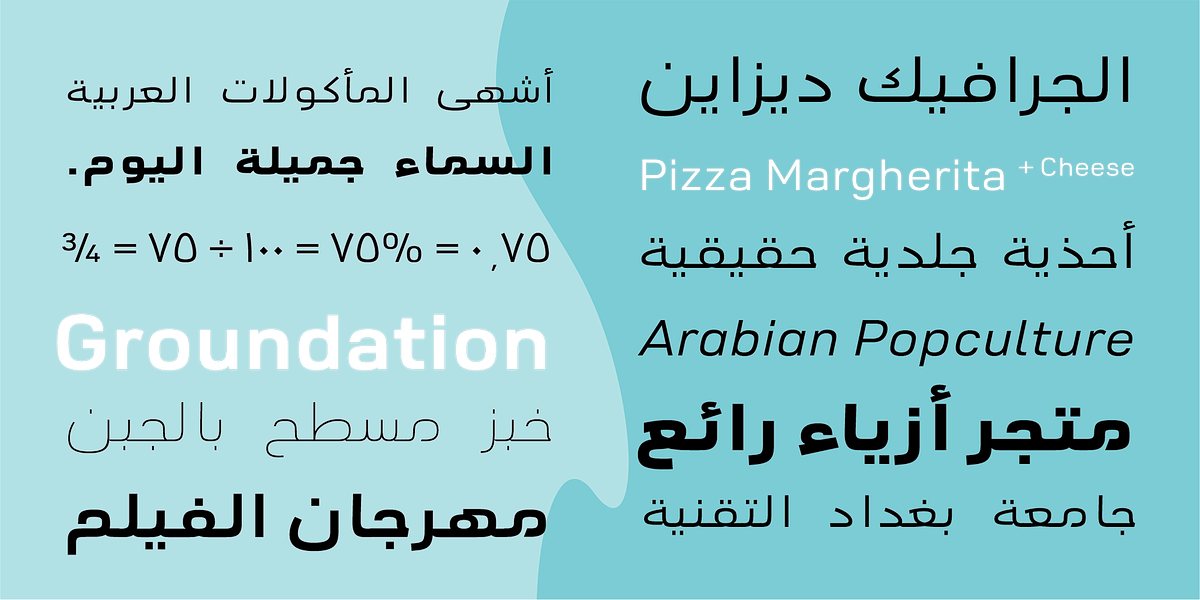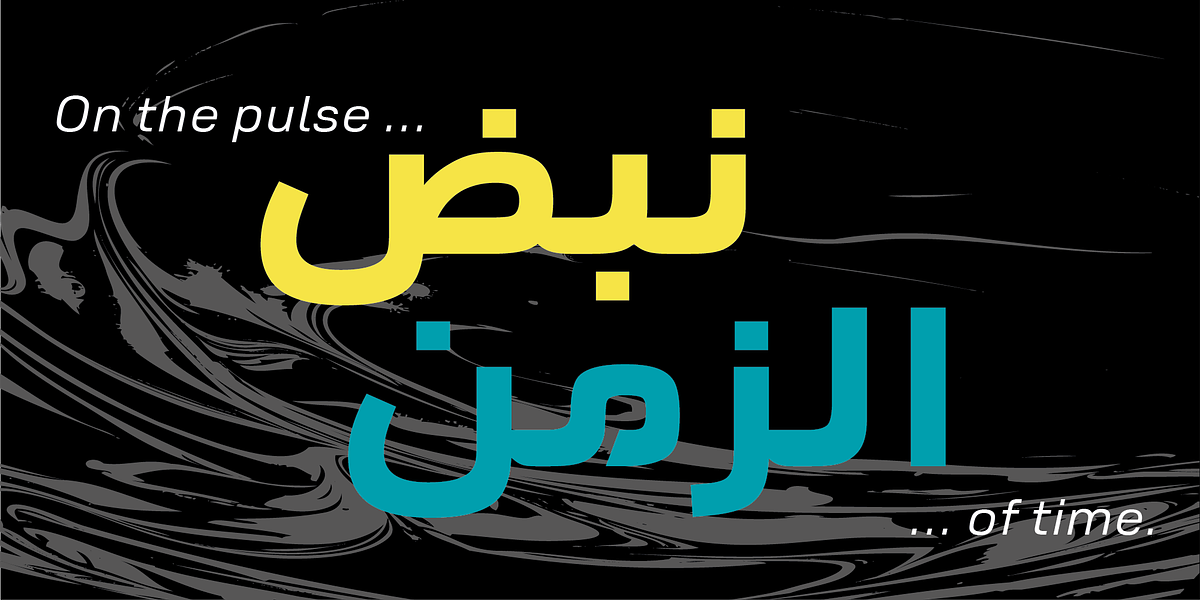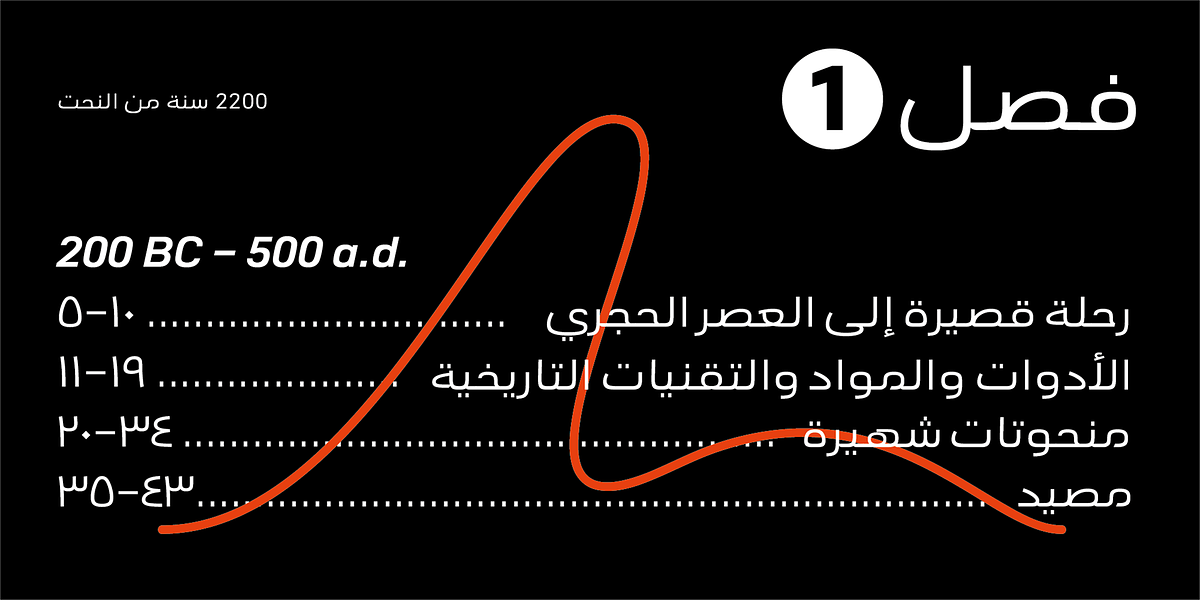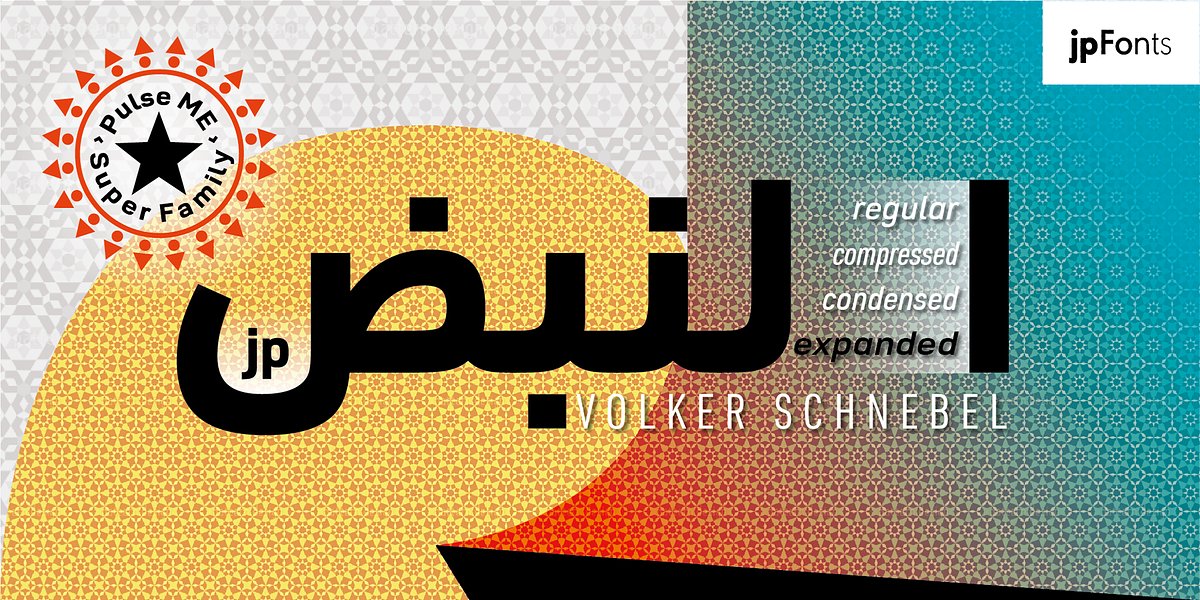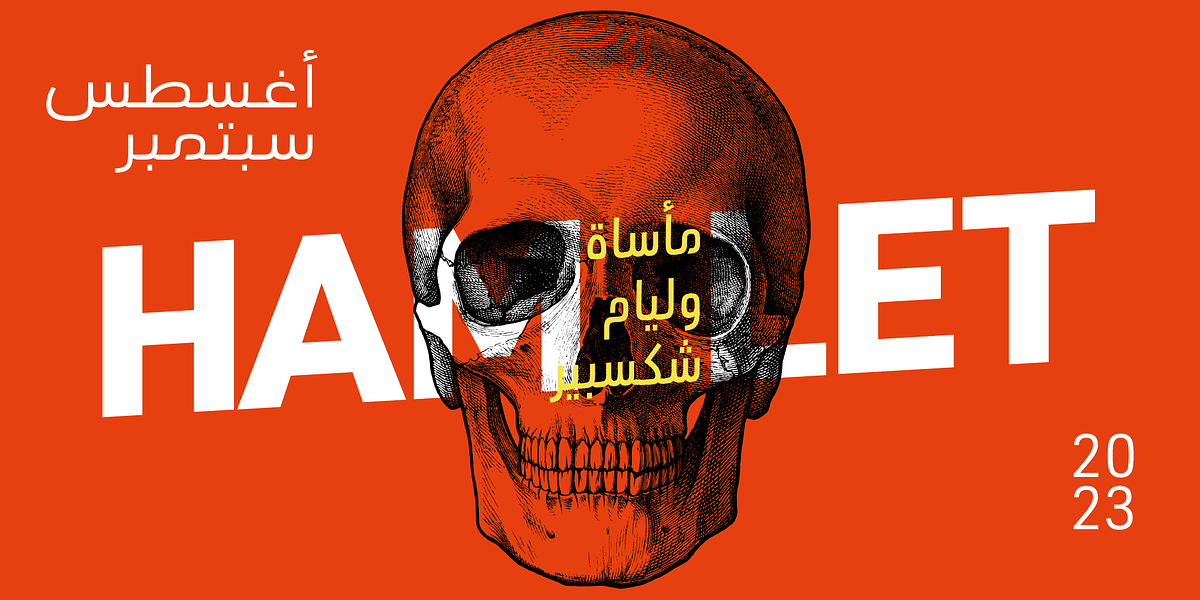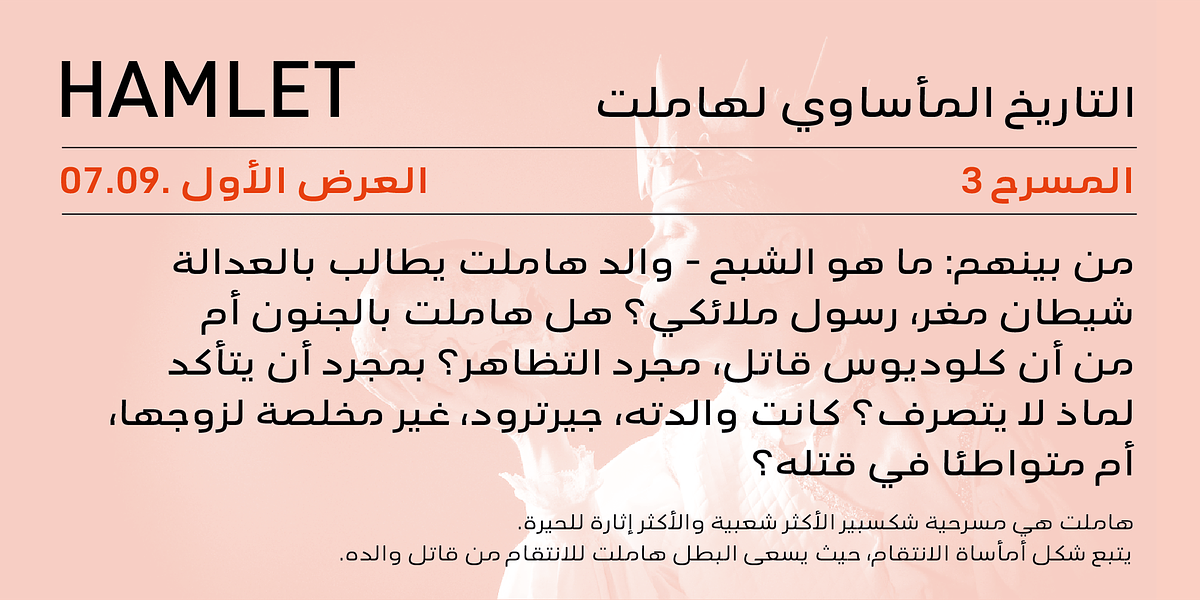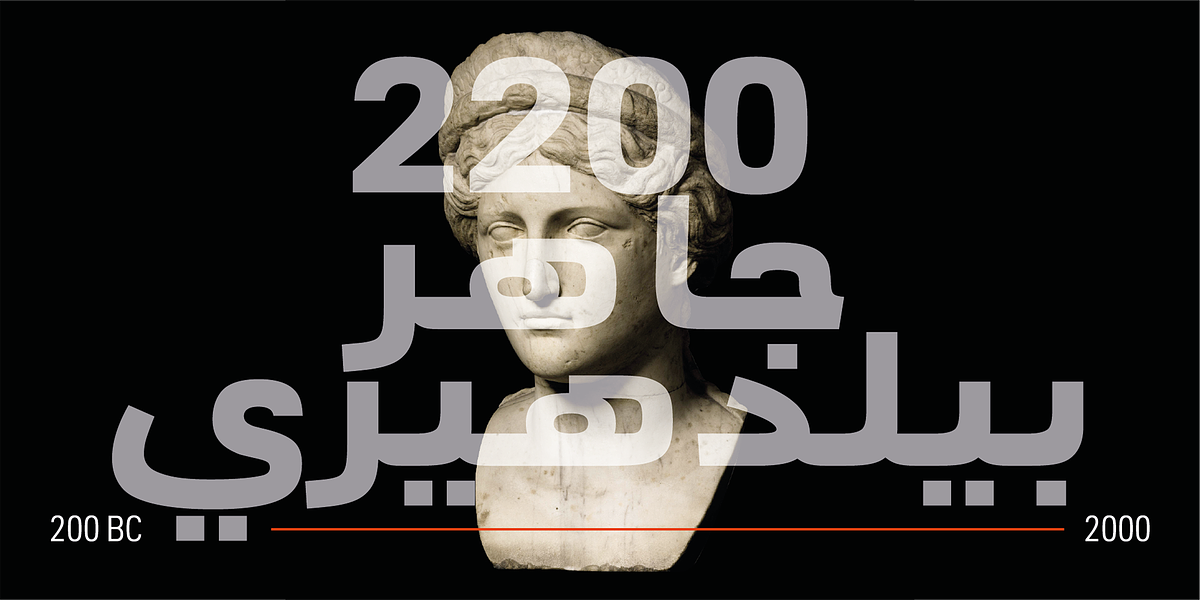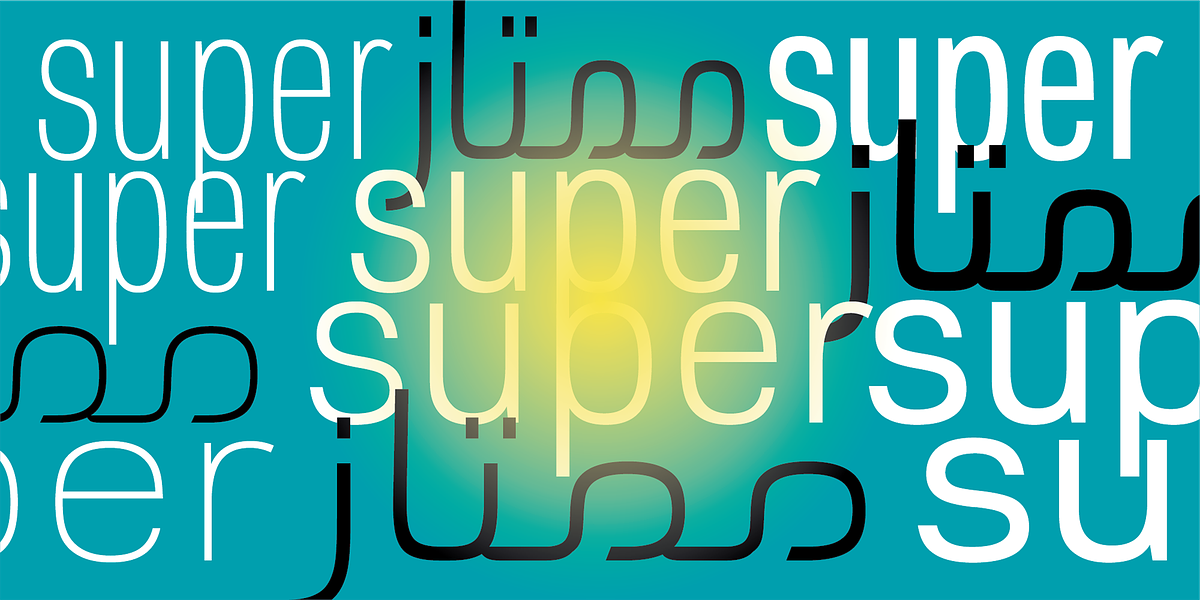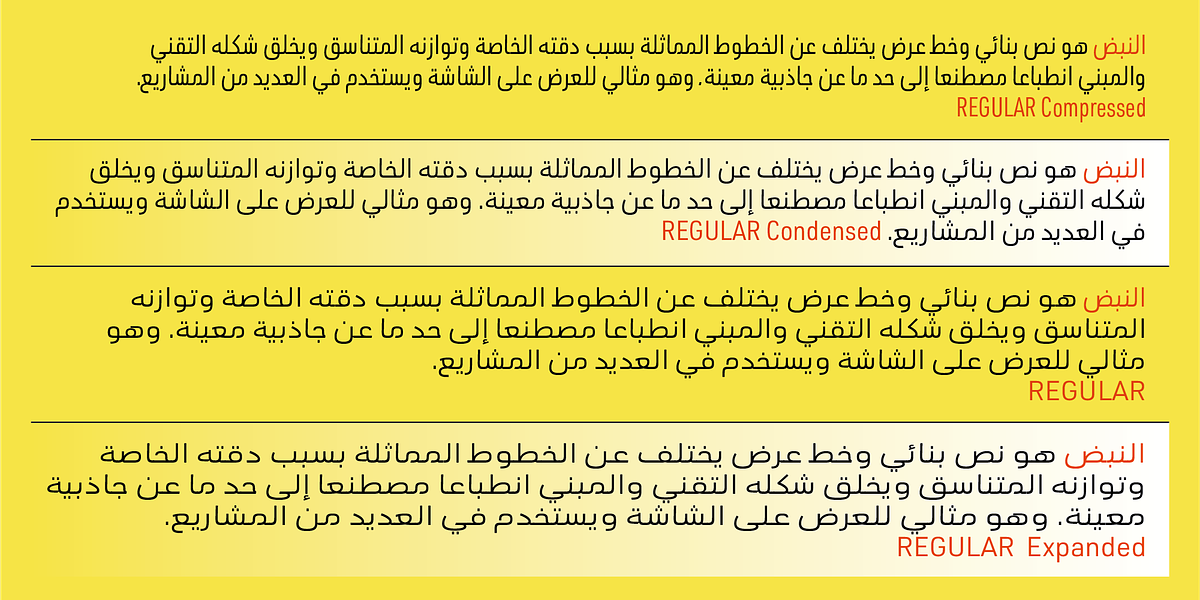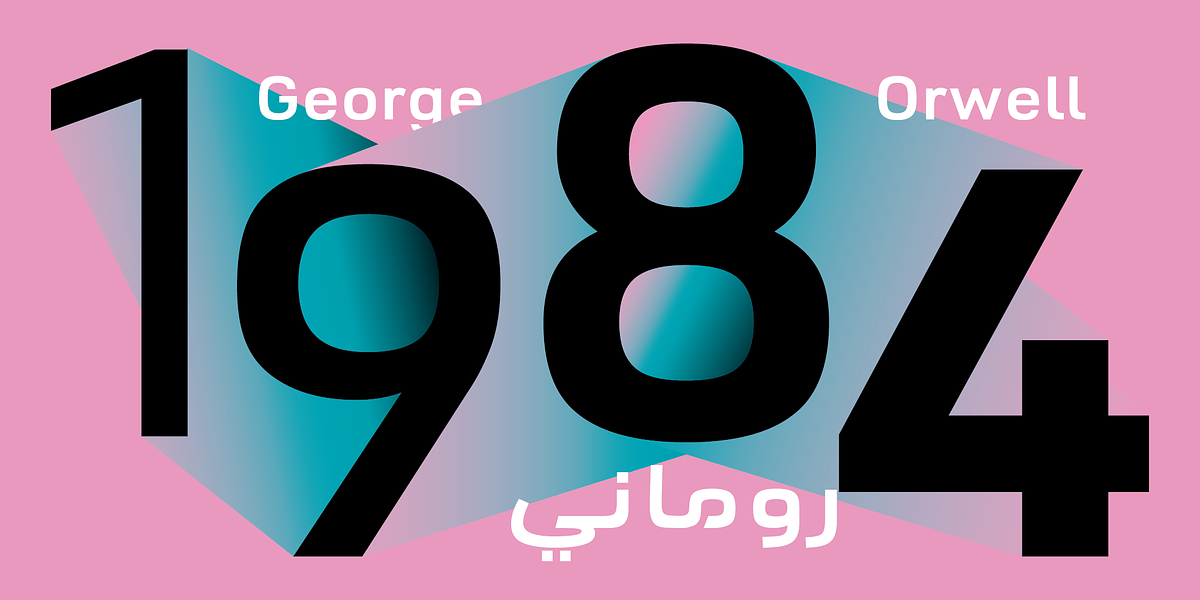
Pulse JP ME Expanded
Pulse JP ME is a neo-grotesque sans serif font characterized by its sharpness and balanced design. The superfamily offers a wide range of weights and widths, allowing for versatility in various design applications. Its technical construction lends itself well to both display and body text usage. The font's extensive character set supports multiple languages, including Arabic, making it suitable for international projects.